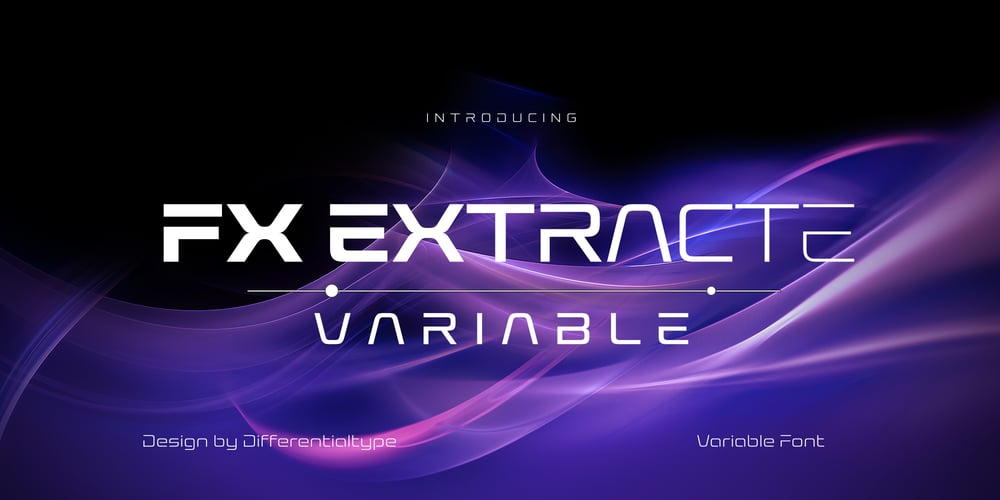
FX Extracte Variable Font Family was designed by Sidik Sidik and published by Differentialtype. FX Extracte Variable contains 1 styles and family package options. Unleash the power of your futuristic design concepts with FX Extracte Variable – a forward-thinking display font. With an intricate blend of unique characters in a variety of different styles, the possibilities are endless. FX Extracte Variable pushes the boundaries with its highly unique distorted ligature feature, creating a truly dynamic font experience. Whether you plan to use it for a striking title, innovative logo, inspired branding project, an enthralling game, captivating app, thrilling film, or other futuristic-themed design, FX Extracte Variable is here to elevate your concepts to new dimensions.